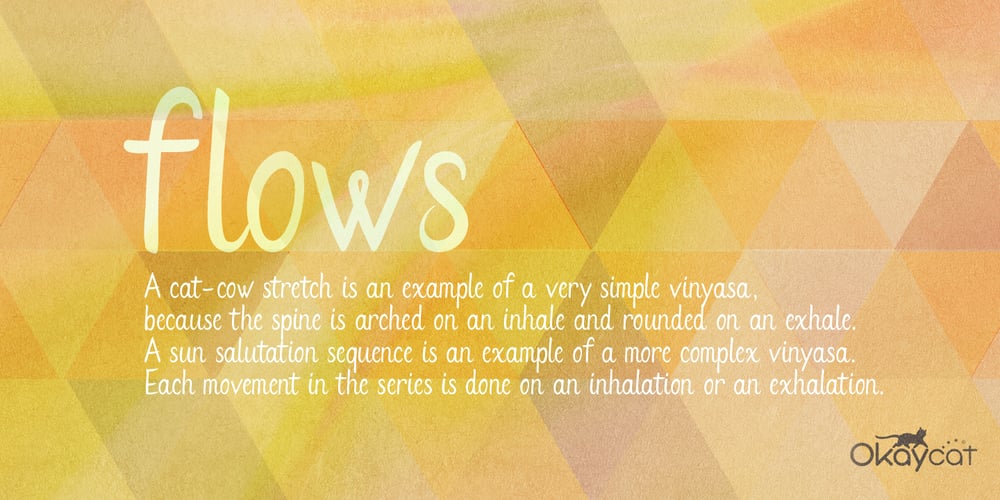
Flows Font Family was designed by Natsuko Hayashida and published by Okaycat. Flows contains 1 styles and family package options. Flows is a gentle lightly connected letter script. This beautiful design brings a peaceful look to all communications. Flows is a multilingual font appropriate for publishing to international environments.